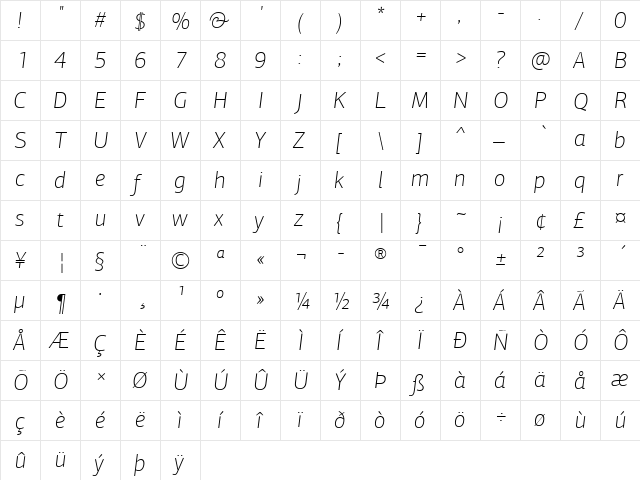
PF Agora Sans Pro Thin Italic Font Preview
| Foundry | Parachute蠗orldwide |
| Designer | Panos Vassiliou |
Design Context for PF Agora Sans Pro Typeface
PF Agora Sans Pro takes a measured approach to typography — its balanced proportions and neutral character make it a reliable workhorse for both digital and print work. The dynamic lean of this cut emphasises speed and emphasis in any layout. Its slender proportions lend an understated elegance to any composition.
Pro Tip: Use PF Agora Sans Pro for emphasis, pull quotes, and subheadings where its slanted energy can add rhythm to the layout.